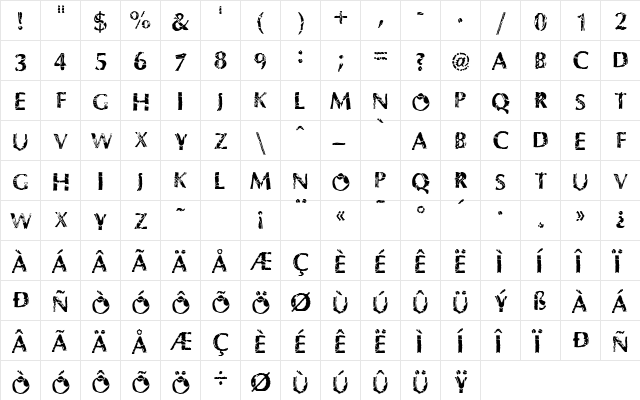
Dinosaur Fontasaurus Text
Design Context for Dinosaur Typeface
Dinosaur is a composed and adaptable typeface that performs quietly and consistently across a wide range of design contexts.